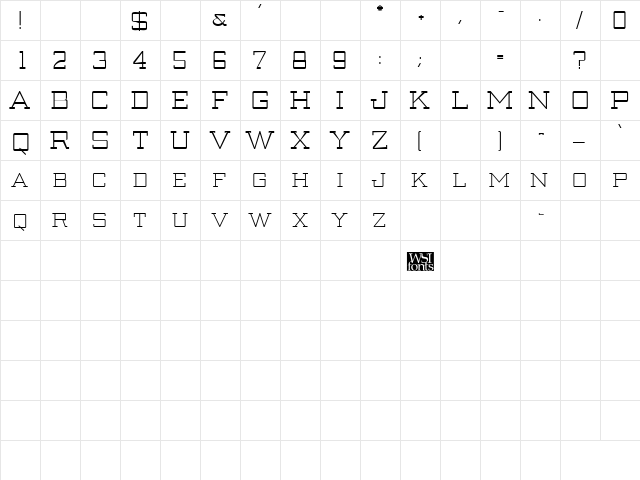
Creenay Regular Font Preview
Creenay Regular
Creenay Regular Font Details
Design Context for Creenay Typeface
Creenay offers clean, dependable letterforms without strong stylistic allegiance, making it a practical choice for designers who need flexibility.